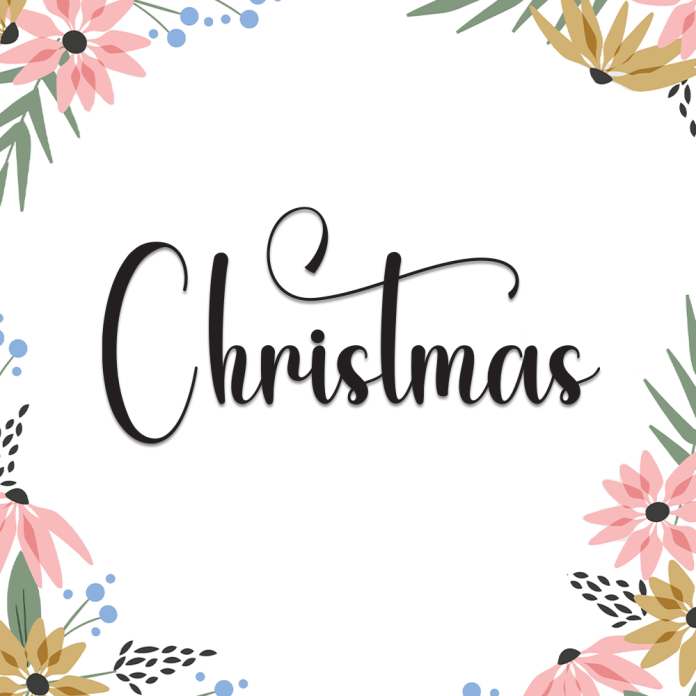
Christmas is a joyful and cozy handwriting font that captures the spirit of the holiday season. With smooth curves and warm, handwritten strokes, this font brings a personal and festive touch to any Christmas-themed design.
Handwriting style with a soft, cheerful feel
Perfect for holiday cards, gift tags, party invitations, and seasonal branding
Elegant yet playful characters